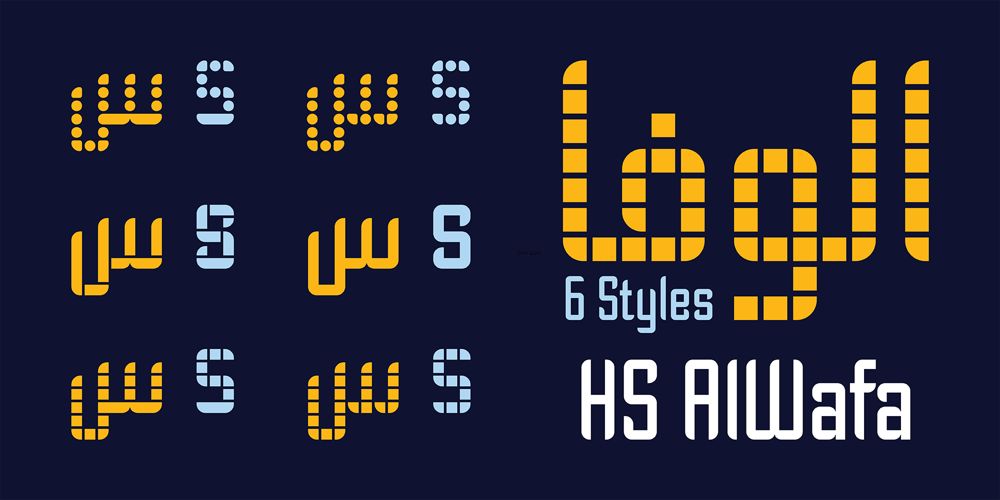
HS Alwafa Font Family was designed by Hasan Abu Afash and published by Hiba Studio. HS Alwafa contains 6 styles and family package options. HS Alwafa is a display font designed primarily for headlines, based on the principles of Square Kufi. It supports Arabic, Persian, Urdu, and Kurdish languages. Initially developed in 2012 in the HSAlwafa-Squares style for use in digital engineering projects, the font was tailored for technological environments, characterized by its geometric structure with equal vertical and horizontal dimensions, giving the letters a digital and technical appearance.In addition to HSAlwafa-Squares, three other styles were introduced: HSAlwafa-Regular, HSAlwafa-BaseSq, and HSAlwafa-Stencil. In 2024, two more styles were added -HSAlwafa-BaseDot and HSAlwafa-Dots- bringing the total number of styles to six. Simplified English was also added across all styles.HS Alwafa is a valuable addition to the Arabic typeface library, offering various styles with a contemporary technical aesthetic. It is ideal for a wide range of design applications such as headlines, book covers, creative designs, and modern logos, especially when a clean, modern look is required for digital purposes.